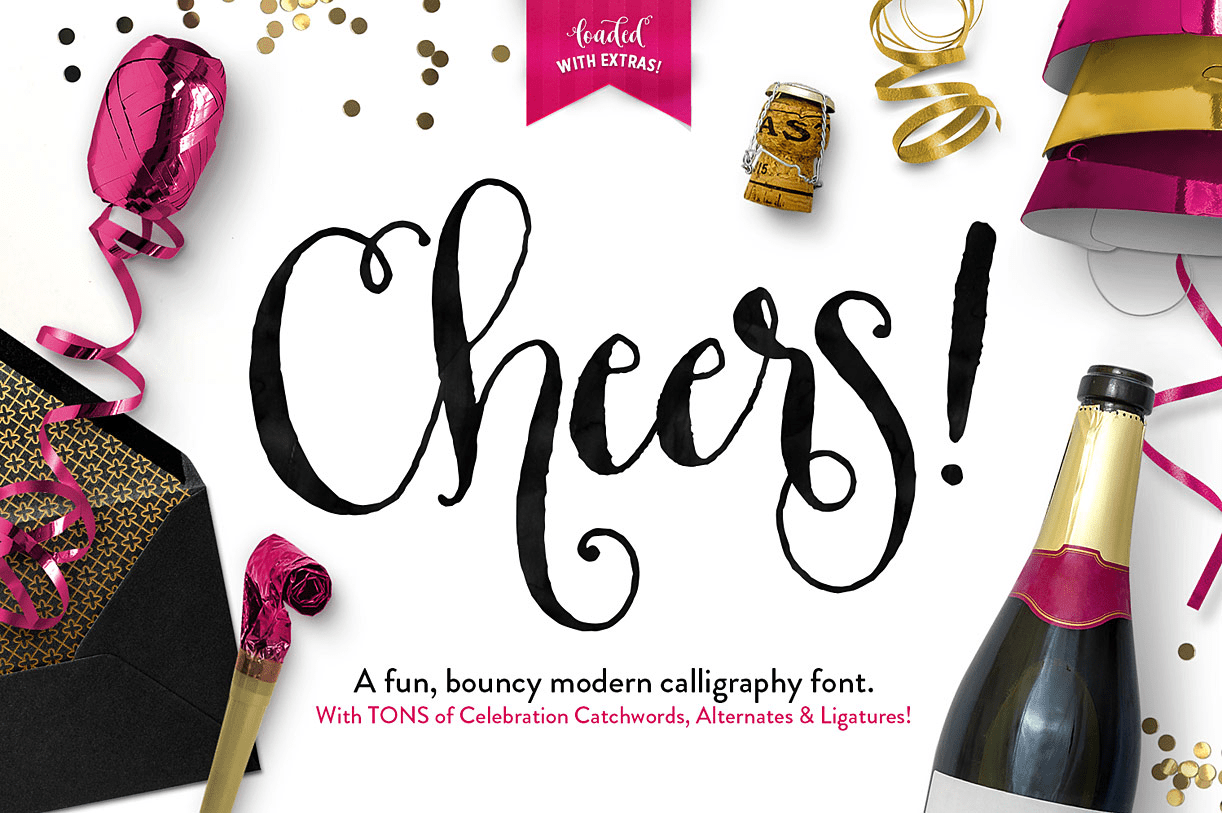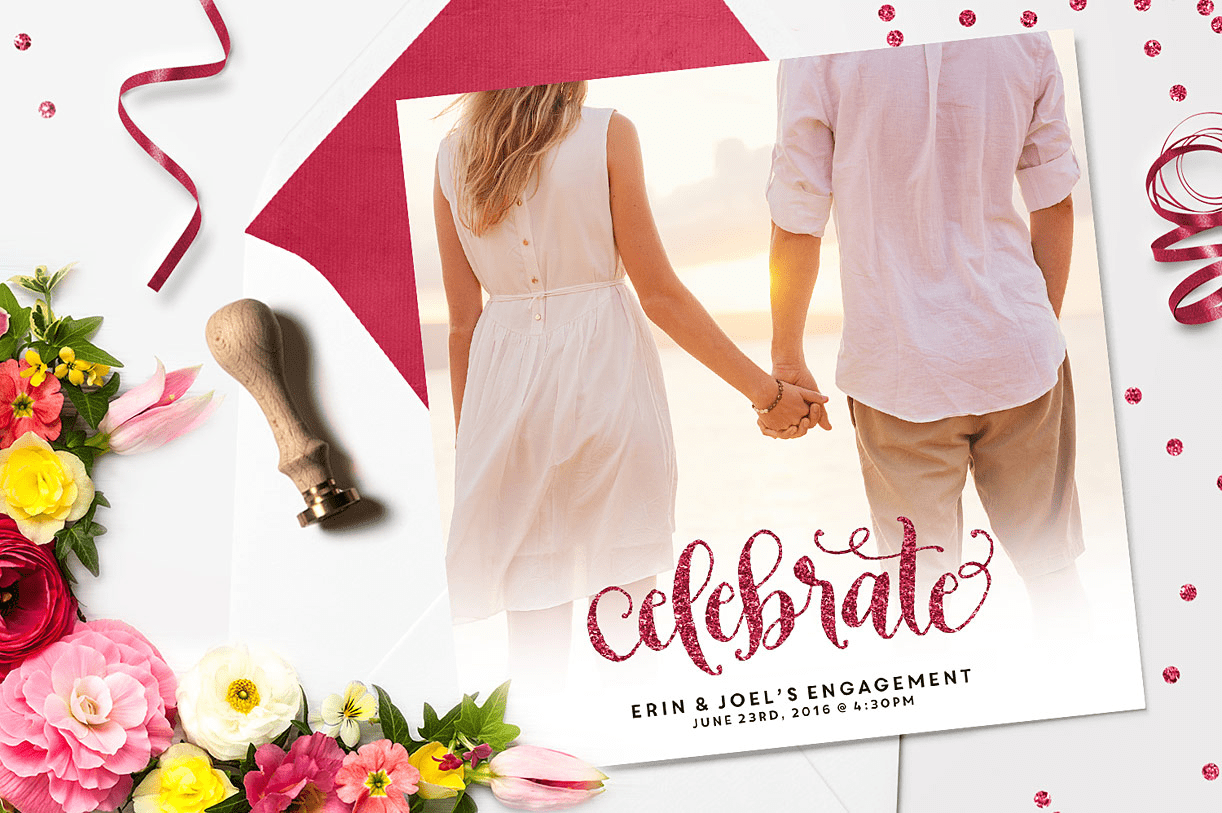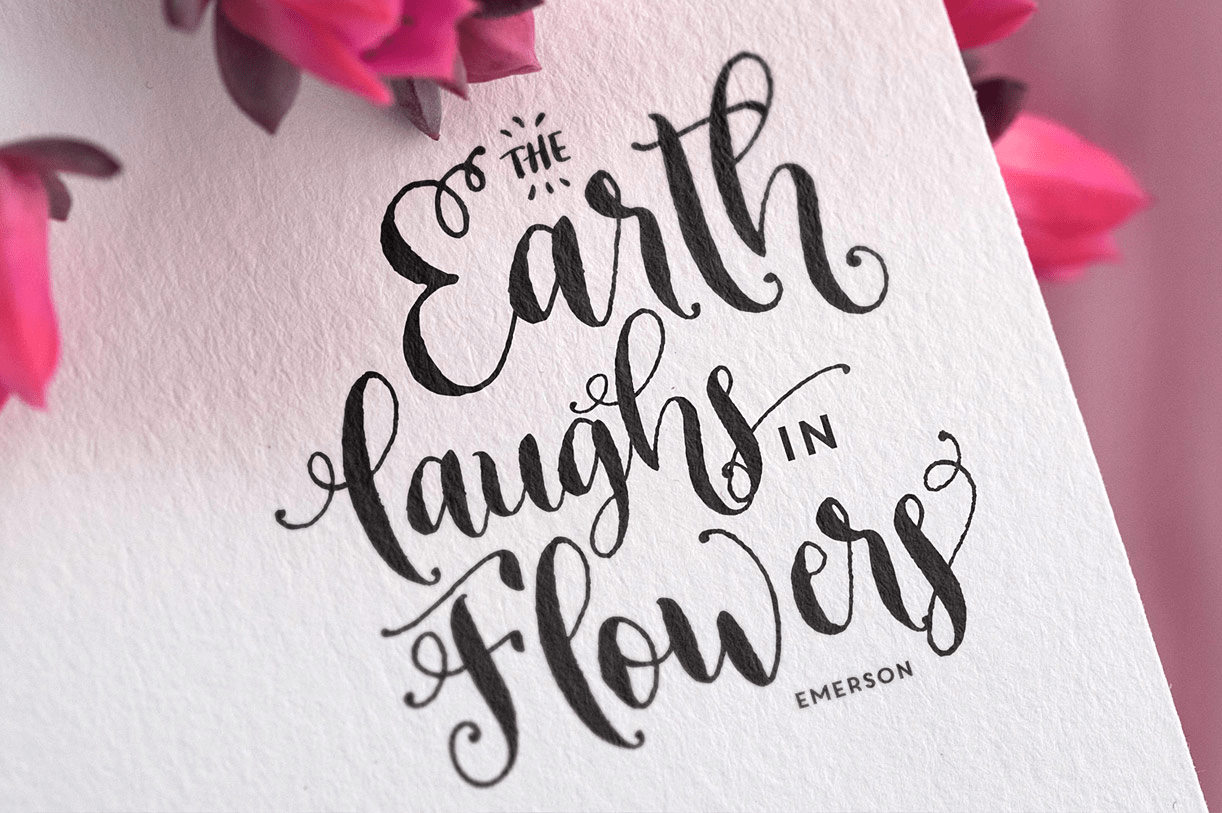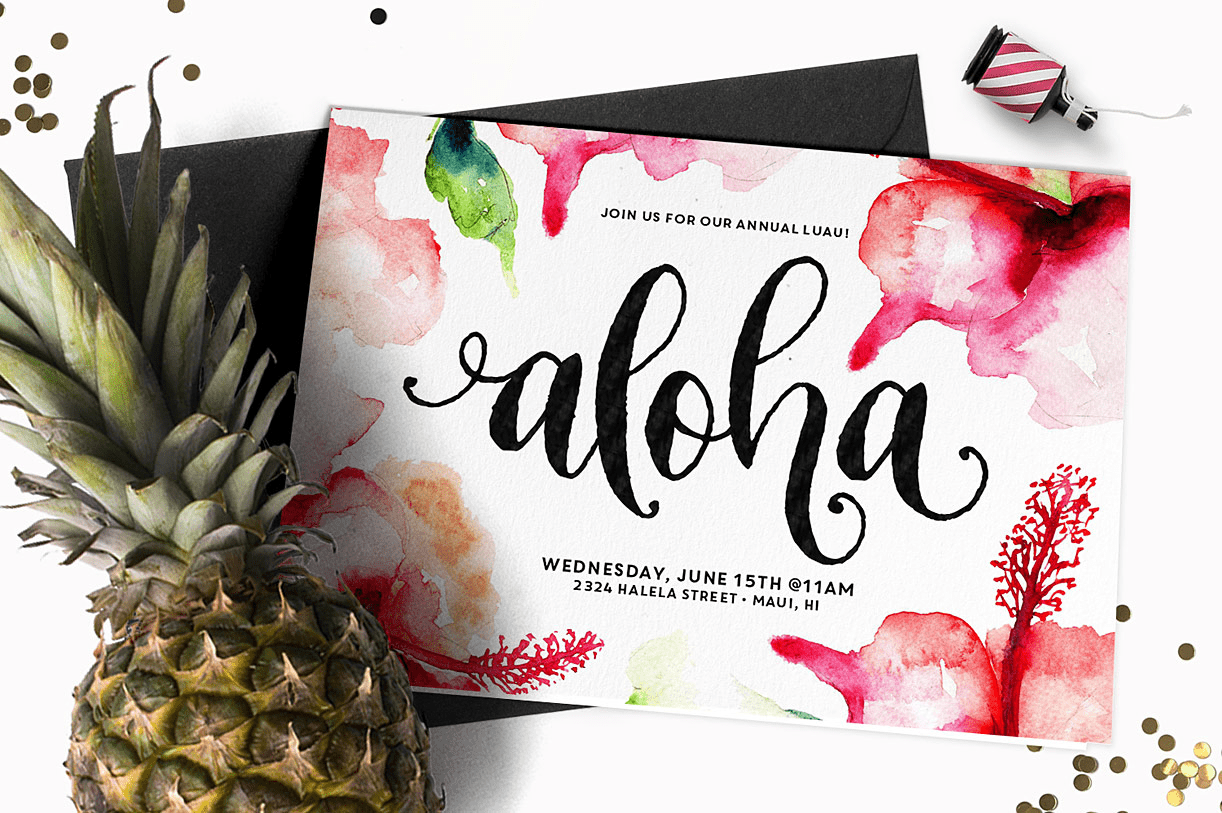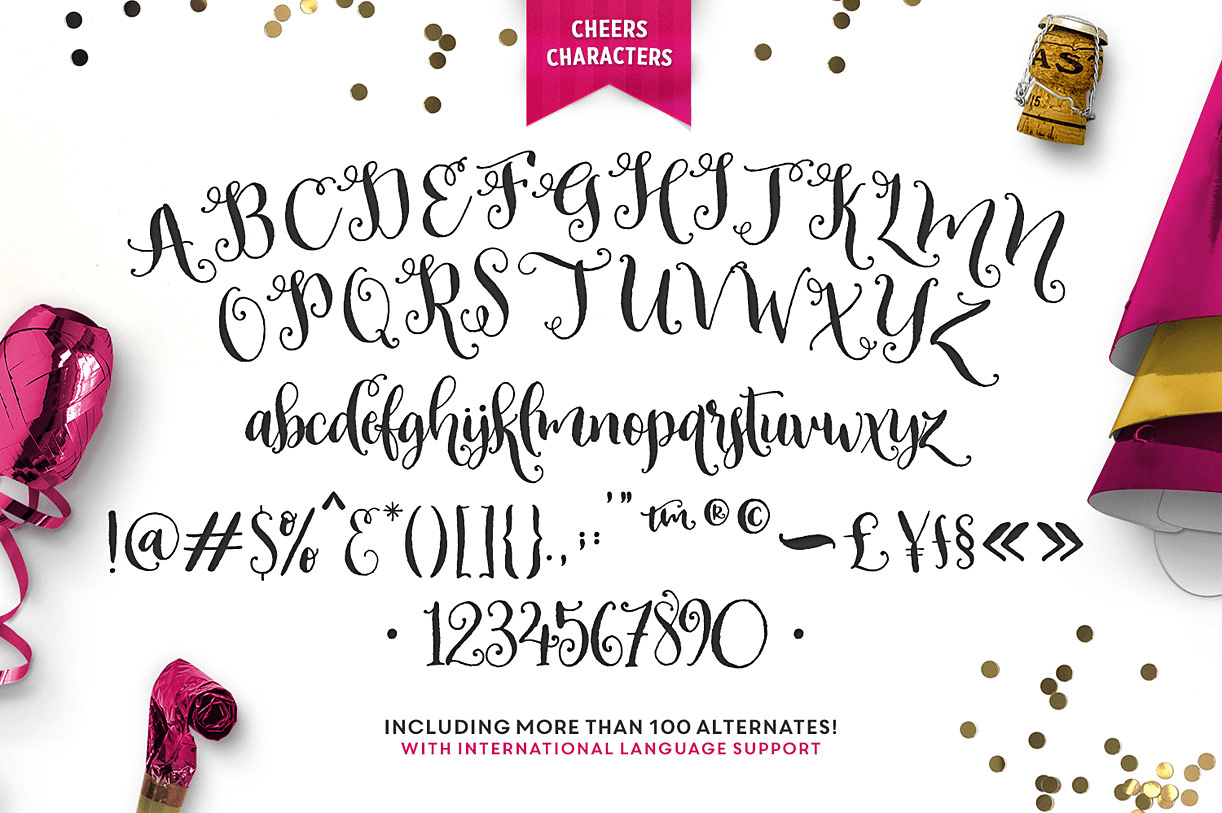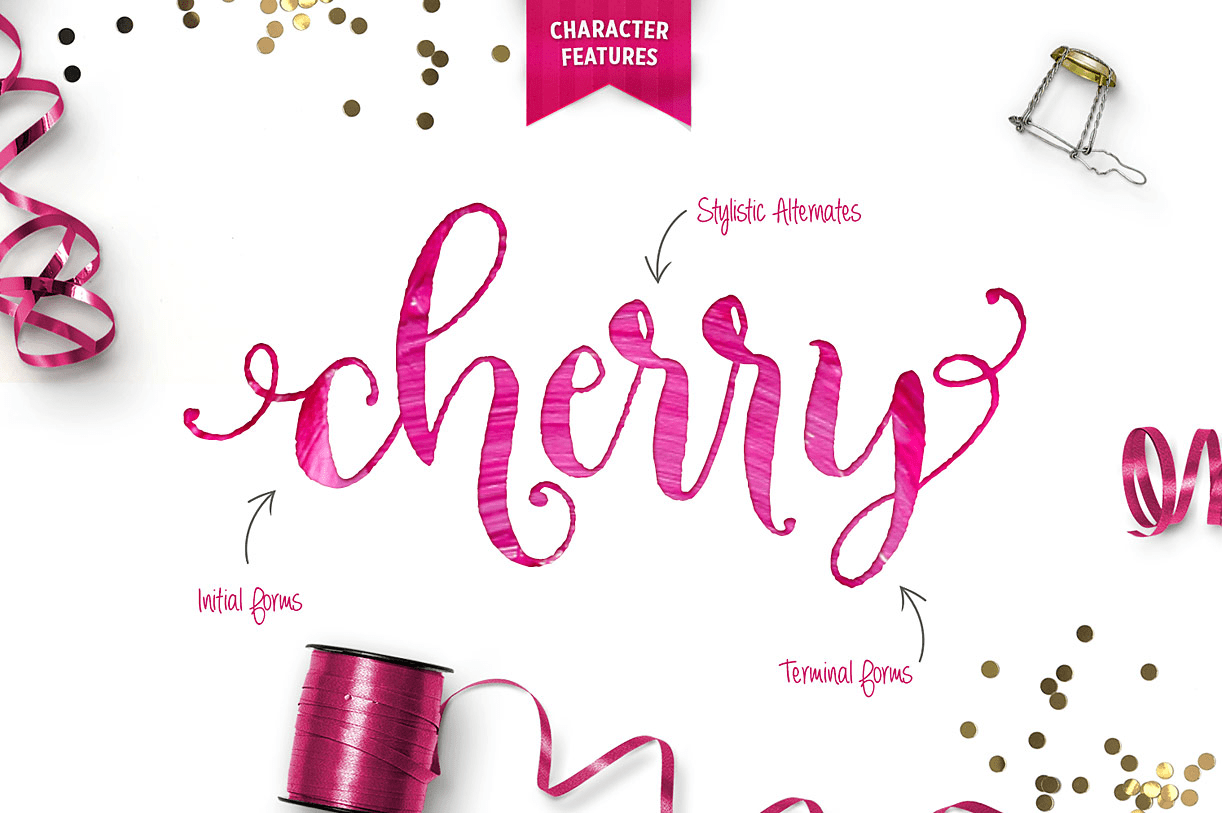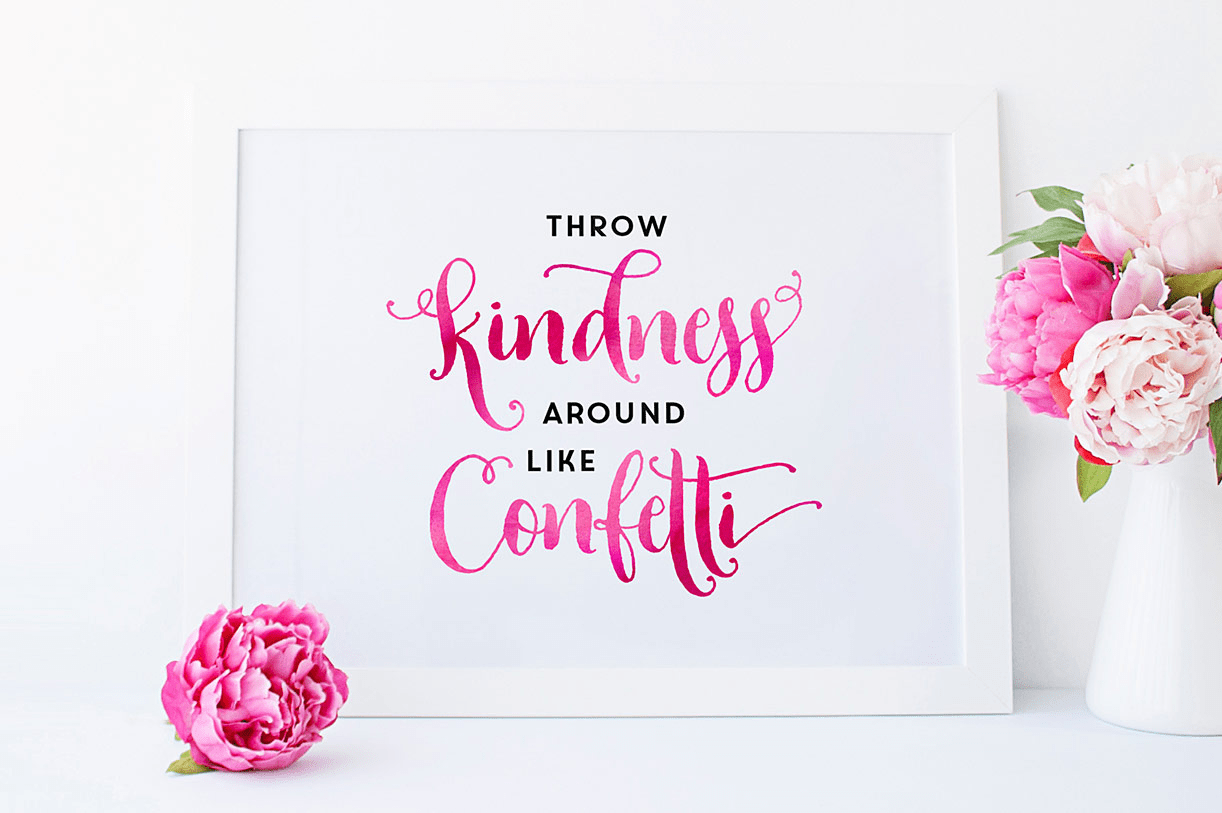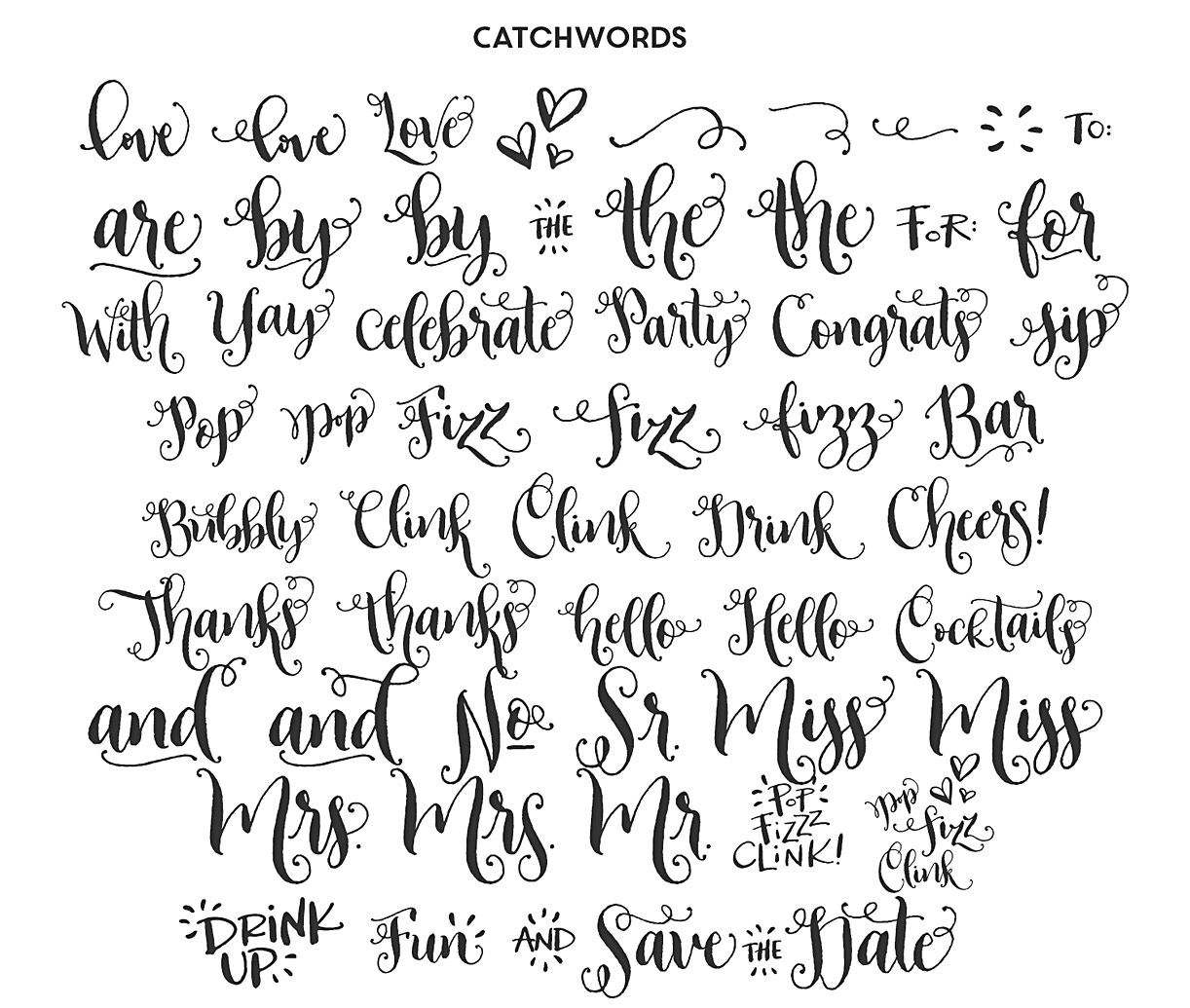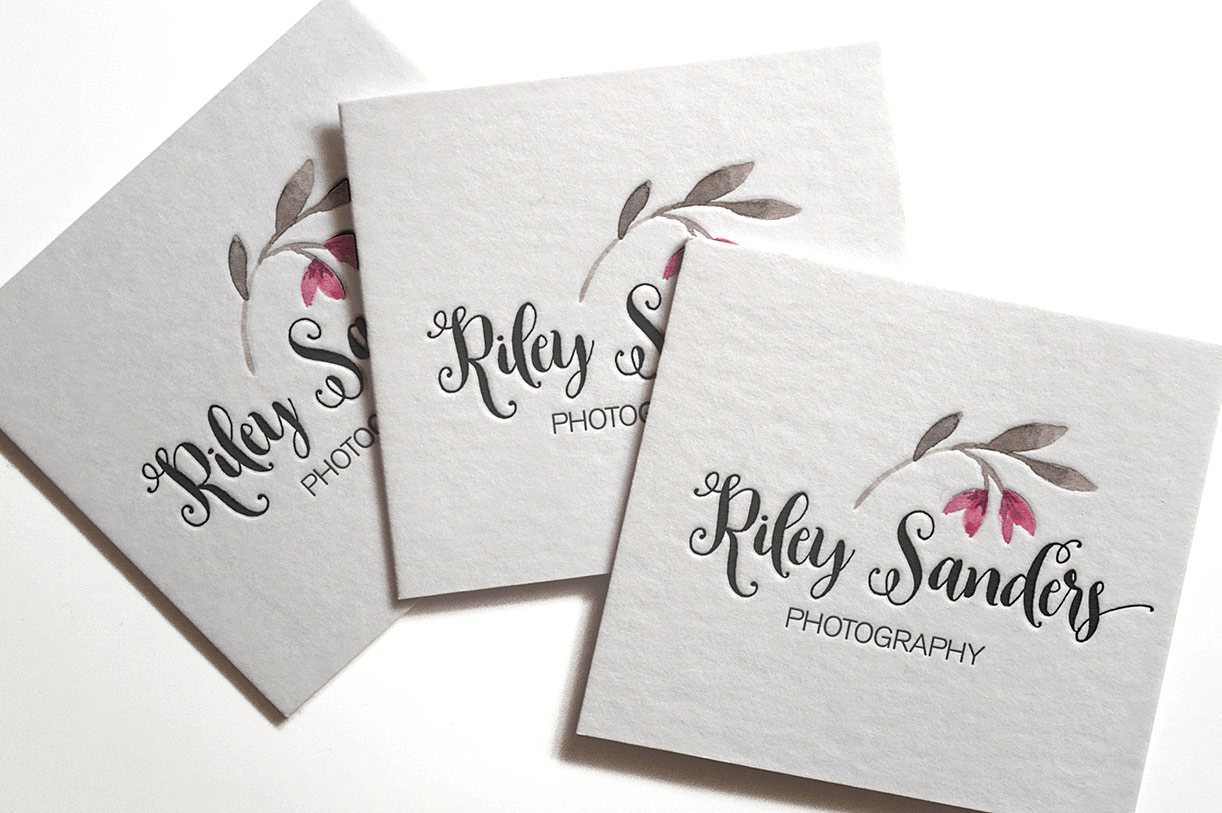
Cheers
Meet Cheers! A bouncy, fun modern calligraphy font with TONS of celebration catchwords, alternates and a sweet graphic bonus!
Cheers was designed with celebrations in mind, so I've done the heavy-lifting for you with 40 ready-made party catchwords, and a pack of hand-drawn celebration graphics. But don't think you're limited to party invites! Cheers looks gorgeous on logos, websites, stamps, quote posters, greeting cards and more!